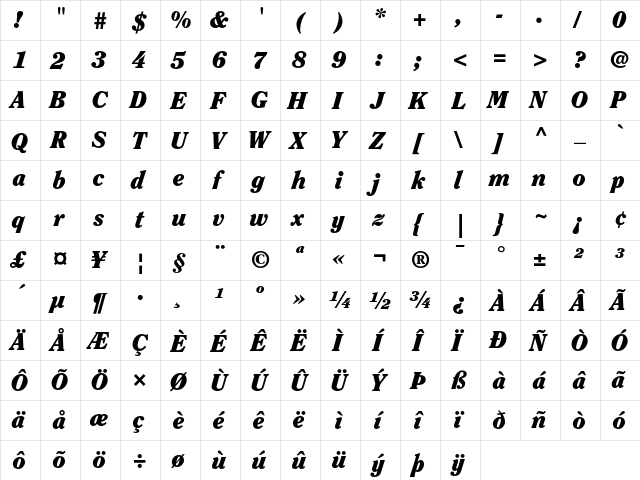
ITC Clearface Black Italic Font Preview
ITC Clearface Black Italic
Design Context for ITC Clearface Typeface
ITC Clearface is a composed and adaptable typeface that performs quietly and consistently across a wide range of design contexts. The dynamic lean of this cut emphasises speed and emphasis in any layout.
Pro Tip: Use ITC Clearface for emphasis, pull quotes, and subheadings where its slanted energy can add rhythm to the layout.